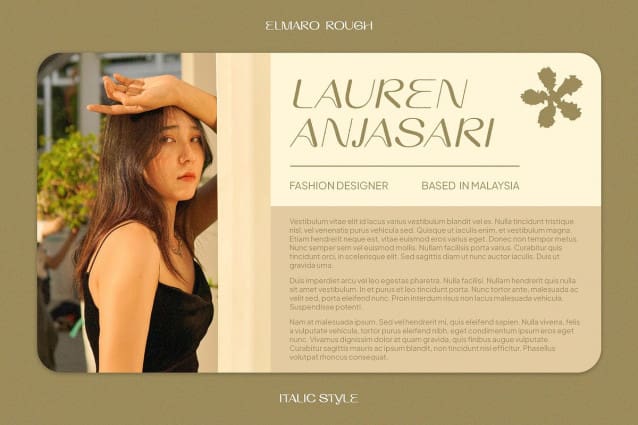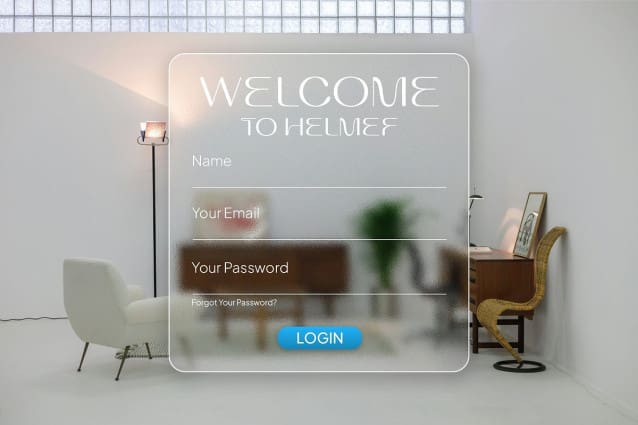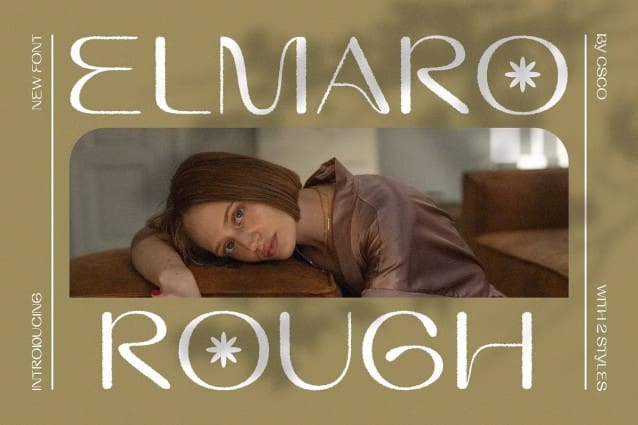
Elmaro Rough Font
Elmaro Rough Font is a modern display sans serif font that harmoniously blends clean lines with a textured finish, creating an elegant and captivating aesthetic. This design offers a unique typographic solution that prioritizes both elegance and a prominent rough texture.
Ideal for projects seeking a distinctive visual impact, Elmaro Rough stands out with its combination of refined elegance and rugged texture. Whether used in editorial designs, branding materials, or promotional campaigns, this font adds depth and character to any application.
Elmaro Rough’s versatility allows it to shine across various design projects where a balance of elegance and texture is desired. From sophisticated logos to striking headlines, it delivers a sophisticated yet bold impression that captures attention and enhances visual appeal.